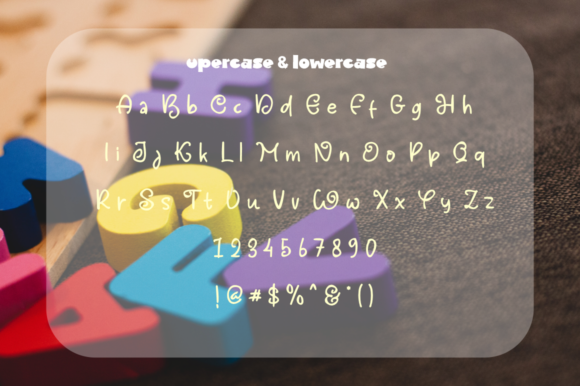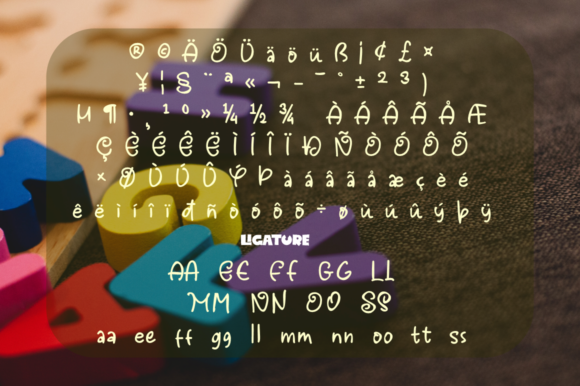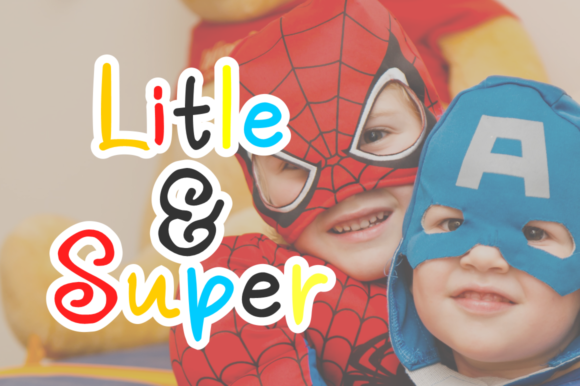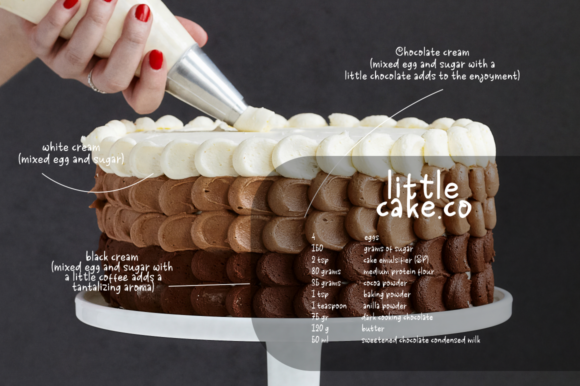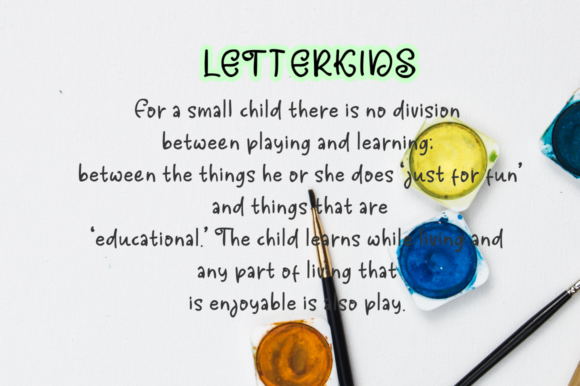
Introduction to Play Rolle Font Font
Fonts play a crucial role in design, and the Play Rolle Font font is a typeface that brings both character and versatility to any project. Whether you’re working on a branding project, a website, or a print design, the Play Rolle Font font offers a unique style that can elevate your work.
Play Rolle is a bouncy and quirky display font.
It will add a fresh and contemporary touch to your designs Add this unique display font to each of your creative ideas and notice how it makes them stand out.
Key Features of Play Rolle Font Font
Why Choose Play Rolle Font Font?
The Play Rolle Font font is more than just a typeface – it’s a design tool that helps you communicate your message with style and clarity. Its unique character set and versatile design make it suitable for a wide range of applications, from elegant invitations to bold headlines.
With its carefully crafted letterforms and balanced proportions, the Play Rolle Font font ensures readability and visual appeal across all mediums.
What makes Play Rolle Font font special?
The Play Rolle Font font stands out with its unique design, exceptional readability, and versatility across various design applications.